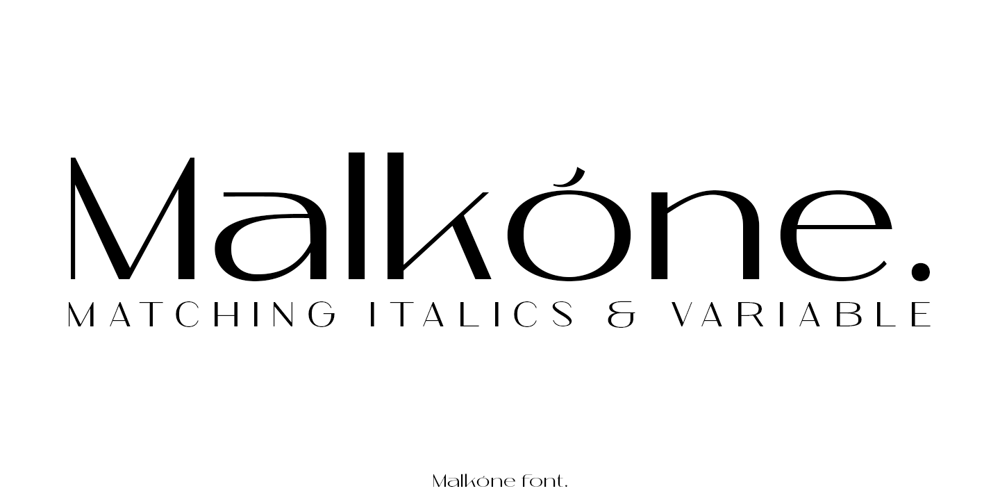
Malkone Font Family was designed by madededuk and published by madeDeduk. Malkone contains 18 styles and family package options. Malkone is a modern sans serif, simplistic, high-contrast sans that is at home in high-end fashion and cultural environments comes in nine weights with various width and weight that you can explore and combine. use this font for any branding, product packaging, invitation, quotes, t-shirt, label, poster, logo etc.Feature Uppercase & Lowercase Number & Symbol International Glyphs Multilingual support Feel free to drop us a message any time and follow my shop for upcoming updatesShoot me on email at: dedukvic@gmail.comHope you enjoy it.